Taylor Swift, 2006
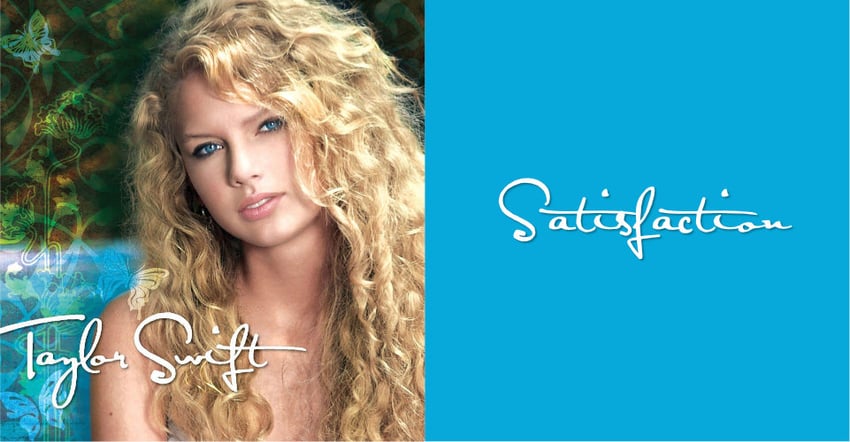
Taylor Swift’s eponymous debut album, released in 2006, introduced her early country sound and paid homage to female country singers like Dolly Parton, Bonnie Raitt, and Shania Twain by using handwritten fonts to convey authenticity. The font Satisfaction served as the Taylor Swift font early in her career. It served as a visual bridge between generations, showcasing a continuity in the genre’s storytelling tradition and signifying Swift’s unique contribution to the country music narrative.
Fearless, 2008, & Fearless (Taylor’s Version), 2021
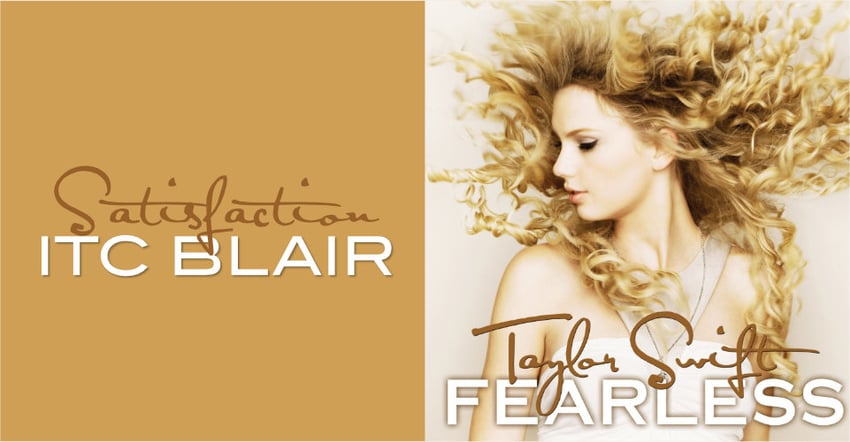
Taylor Swift’s album Fearless, initially released in 2008 and rereleased in 2021, shows a typographical evolution both in terms of the artist’s growth and the change in design trends over the years. The original Fearless cover uses a bold sans serif called ITC Blair for the title and reprises the Taylor Swift font from her debut album, Satisfaction, for her signature. The imagery is reminiscent of other country singers with a pop edge, particularly Shania Twain and Carrie Underwood. Alternatives for the Taylor Swift Fearless font include Knockout and Dublin.
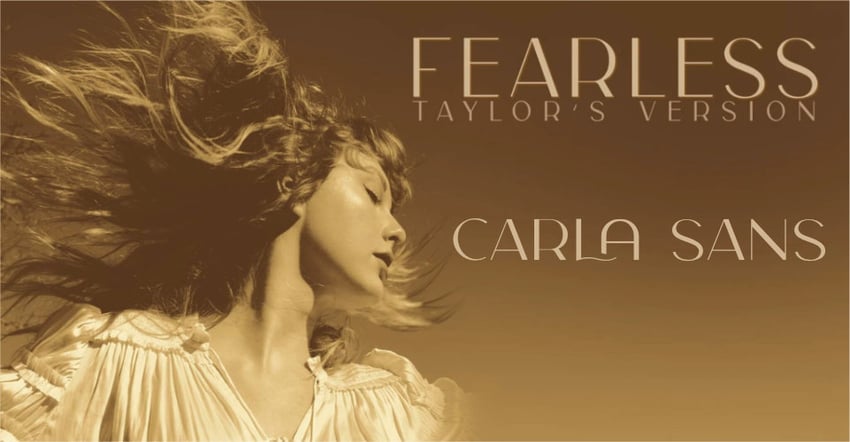
The 2021 rerelease cover adopted a sleek font called Carla Sans Light. Carla Sans has a particularly elegant mix of decorative curves and high-contrast strokes and would go on to be used on multiple covers.
In addition to the difference in font, the Fearless rerelease also introduced modular design techniques reflecting the industry shift to streaming. While the marketing material for Fearless (Taylor’s Version) uses Carla Sans Light, the album cover eschews typography altogether. Instead, all of Swift’s newer covers incorporate motion graphics that add visual interest on streaming platforms. All in all, Fearless and the rerelease reflect a substantial change in both aesthetic and design philosophy but clearly communicate Swift’s musical identity. Great alternatives include Carla and, for a lower-contrast option, Moora Light.
Speak Now, 2010, & Speak Now (Taylor’s Version), 2023
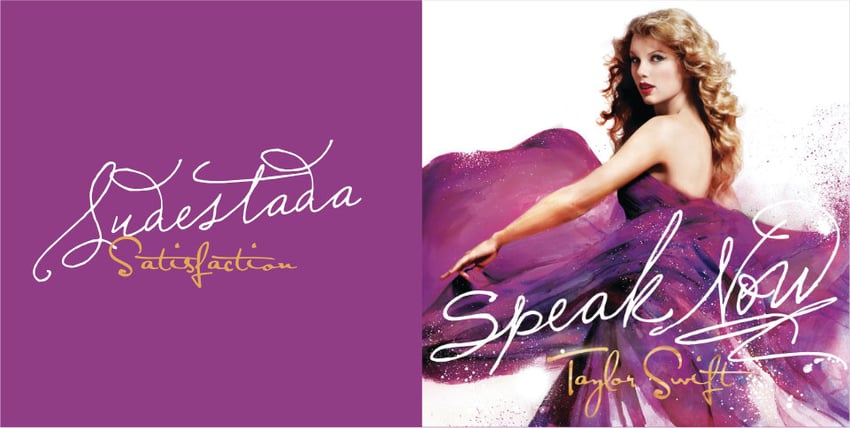
Taylor Swift’s album cover for Speak Now, released in 2010, is a colorful mix of painted textures and handmade typography. A heavily modified Sudestada serves as the album title, while Satisfaction returns as the Taylor Swift signature font for the final time. The shape of the title also visually references Dolly Parton’s “Dolly” signature. The move away from script fonts in her subsequent albums also reflects a move away from country. You can find an excellent alternative for the Taylor Swift Speak Now font in Bagitte and Bettarria.
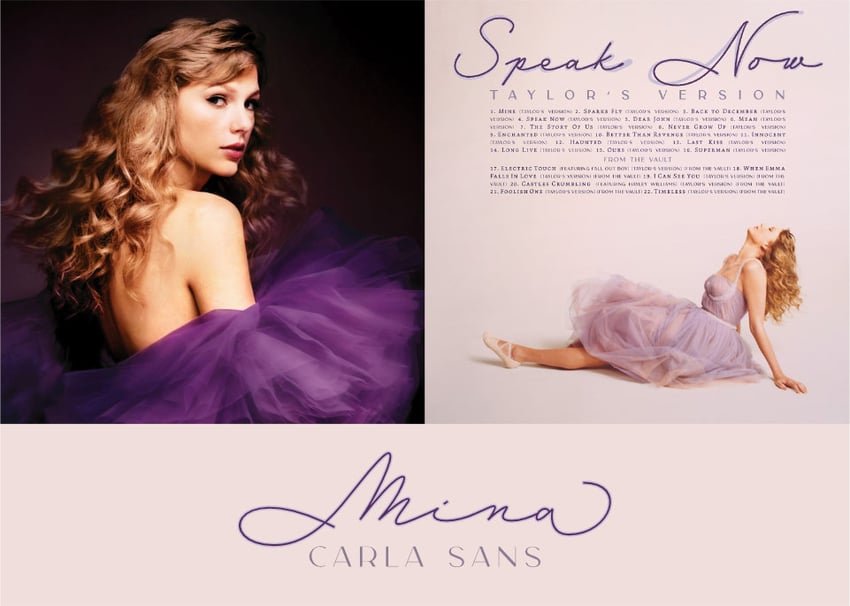
For the 2023 rerelease of Taylor Swift’s album Speak Now, Swift’s designers opted for an album cover devoid of typography. This time, the marketing material employed a sophisticated blend of fonts, with Mina and Carla Sans at the forefront and Dolly and Filosofia making up the small text. Carla Sans kind of replaced Satisfaction as the “Taylor Swift font” for the rereleases. Of course, Bagitte and Bettarria could work as alternatives for Mina, and Silhouetto would also work well.
Red, 2012, & Red (Taylor’s Version), 2021
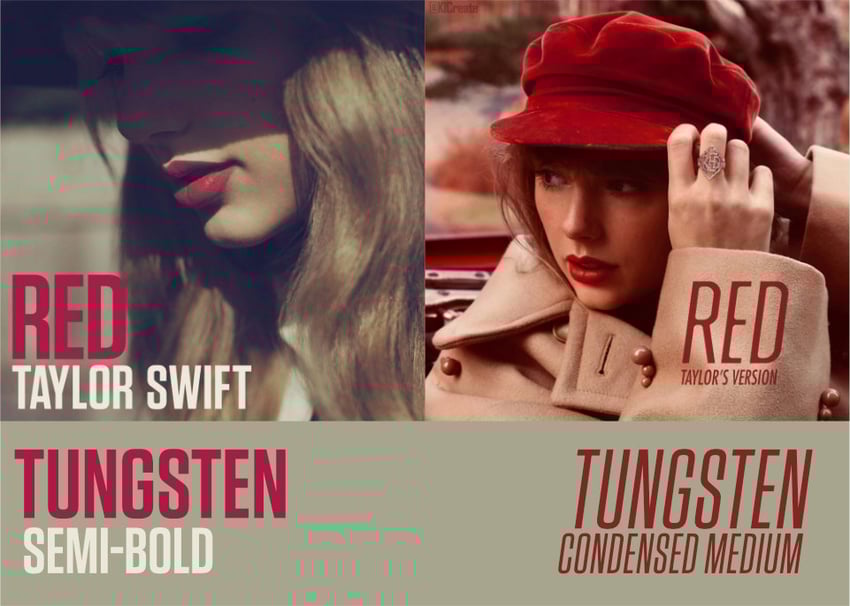
In her album Red, Taylor Swift ventured further afield from her country roots, but the influence is still apparent. Tungsten, a matter-of-fact sans serif, boldly states a departure from her previous style and the introduction of the strong pop and driving bass in the album itself. Visually, the cover of both Red and Red (Taylor’s Version) seem to pay homage to Bob Dylan covers from the ’60s in terms of color, font, style, and subject matter. While Red is known for the driving bass and energetic tracks like “22” and “We Are Never Ever Getting Back Together”, the album is full of melancholy and heartbreak. Tracks like “Red,” “Sad Beautiful Tragic,” and “All Too Well” recall Bob Dylan’s penchant for tales of discontent like “Tangled Up In Blue,” “It Ain’t Me Babe,” and “Don’t Think Twice It’s Alright.”
In the highly anticipated 2021 rerelease of Red (Taylor’s Version), Swift herself revealed feeling heartbroken during the recording of the initial release, and the design echoes the sentiment, though in a more elegant and elevated way. Again, the art draws parallels to Bob Dylan in both color palette and subject matter. Swift even dons a hat reminiscent of the one Dylan wore on the cover of his debut album, adding a layer of homage and intertextuality. Swifties are well aware of the musician’s penchant for smuggling Easter eggs into her work, and it’s hard to overlook the potential foreshadowing of the next step in her career, particularly as she referenced Dylan’s albums at the pivotal point in his career when he moved to New York.
1989, 2014, & 1989 (Taylor’s Version), 2023
In her 2014 album 1989, Swift began a major genre and career shift, and we can see a shift in the Taylor Swift aesthetic in this period too. The album’s title references her birth year and serves as a symbolic rebirth of her career. Opening with the energetic anthem “Welcome to New York,” Swift, a Pennsylvania native, sheds the Nashville twang in her vocals, stating unequivocally that country Taylor Swift was in the past.
What is the Taylor Swift 1989 font? The artist contributed her own Taylor Swift handwriting font! It’s not a font at all but the artist’s handwriting. The album’s original cover evoked the nostalgic charm of a Polaroid photo, subtly paying homage to ’80s pop icons like Michael Jackson and Madonna. With its synth-heavy tracks, 1989 echoed the synth-laden resurgence of the ’80s sound throughout the industry in the early 2010s.
The Tortured Poets Department, 2024
Taylor Swift surprised her fans during the 2024 Grammys when she dropped some news during her acceptance speech. Swift announced she’d been working on a new album that debuted on 19 April 2024, called The Tortured Poets Department.
Following the announcement, Swift posted the album cover on her social media accounts. We see a sepia picture where the artist poses in a black top and shorts, with her arms around her body. In a nod to the original 1989 cover, the top half of her face is cut off.